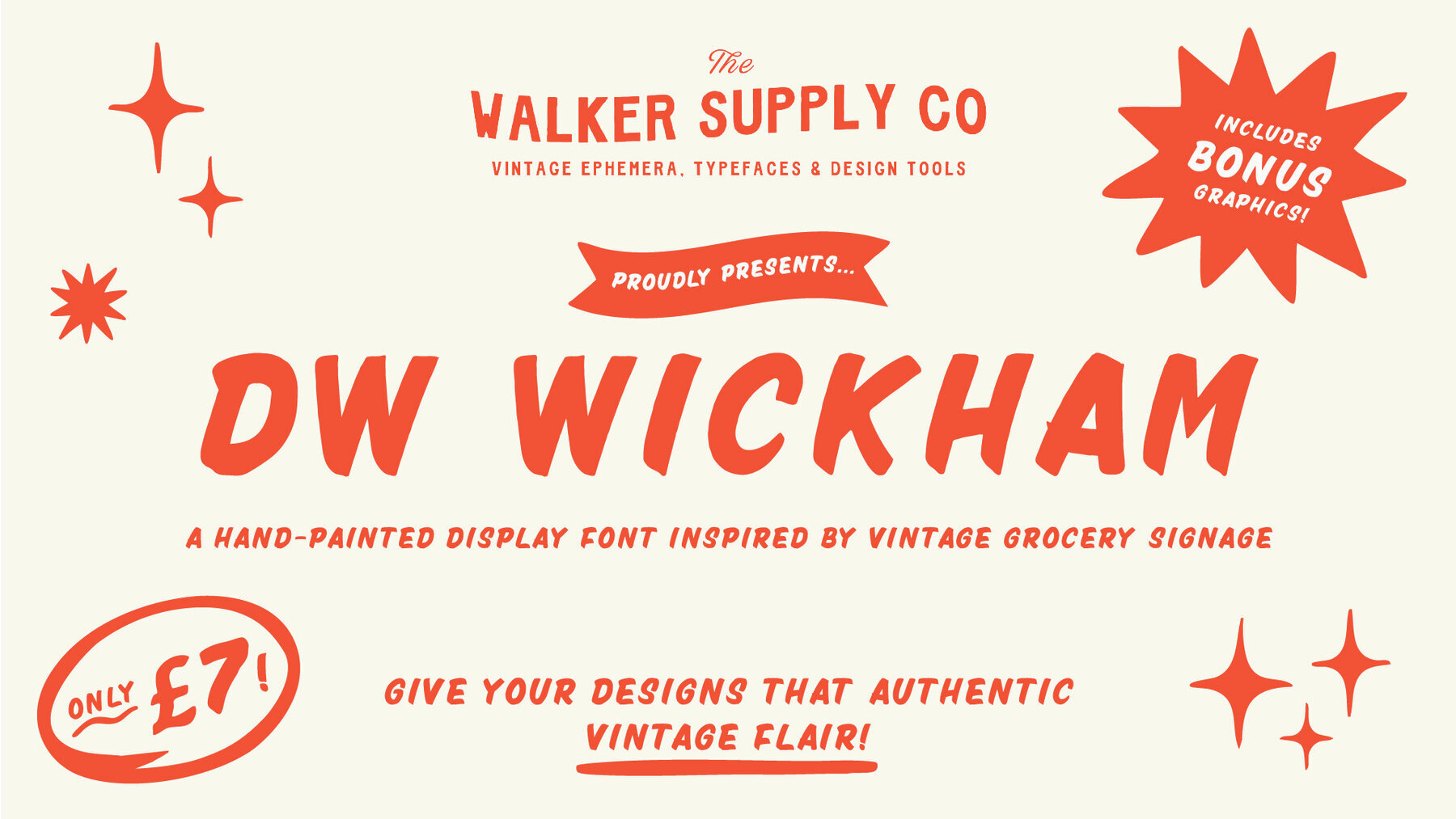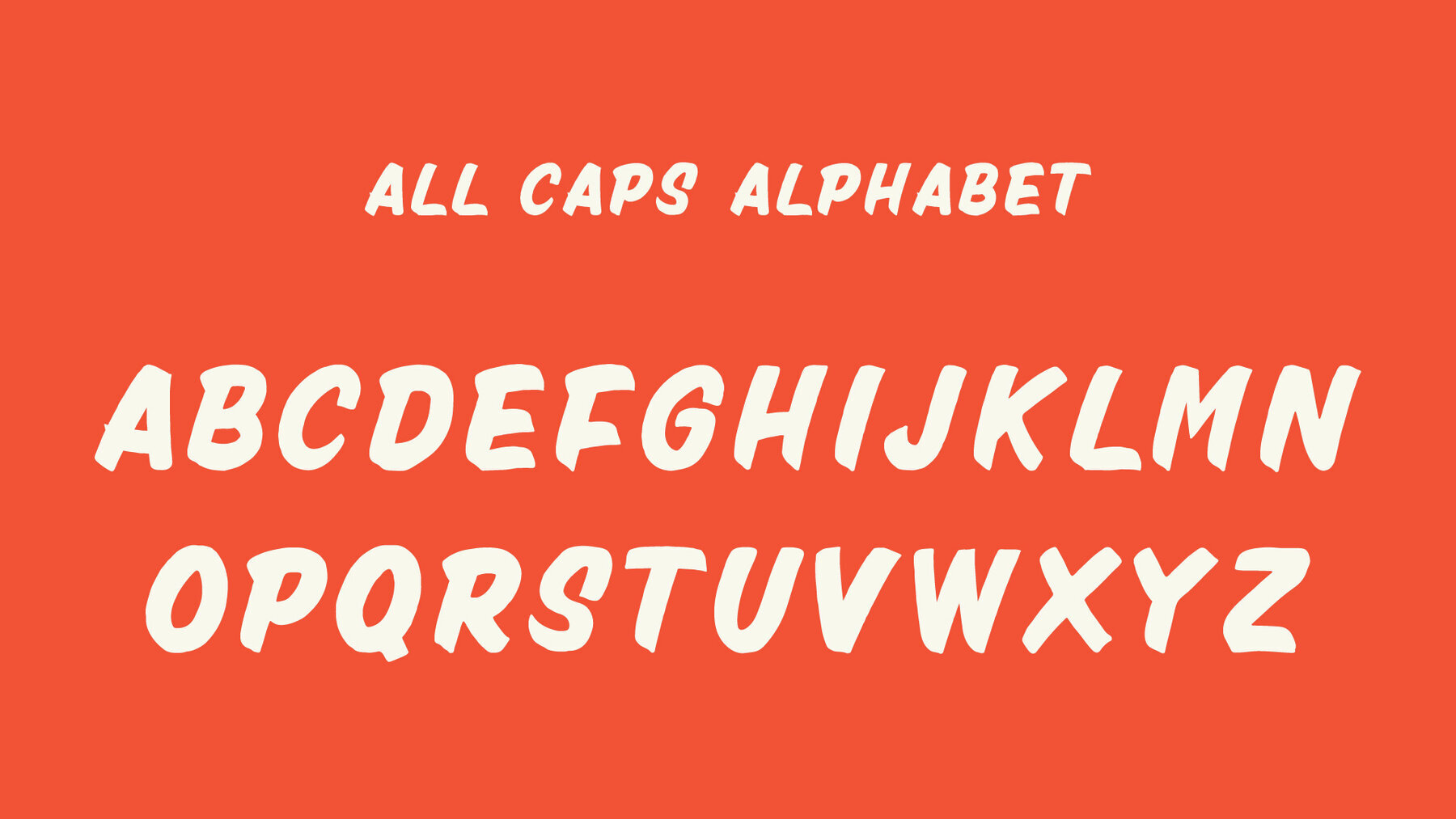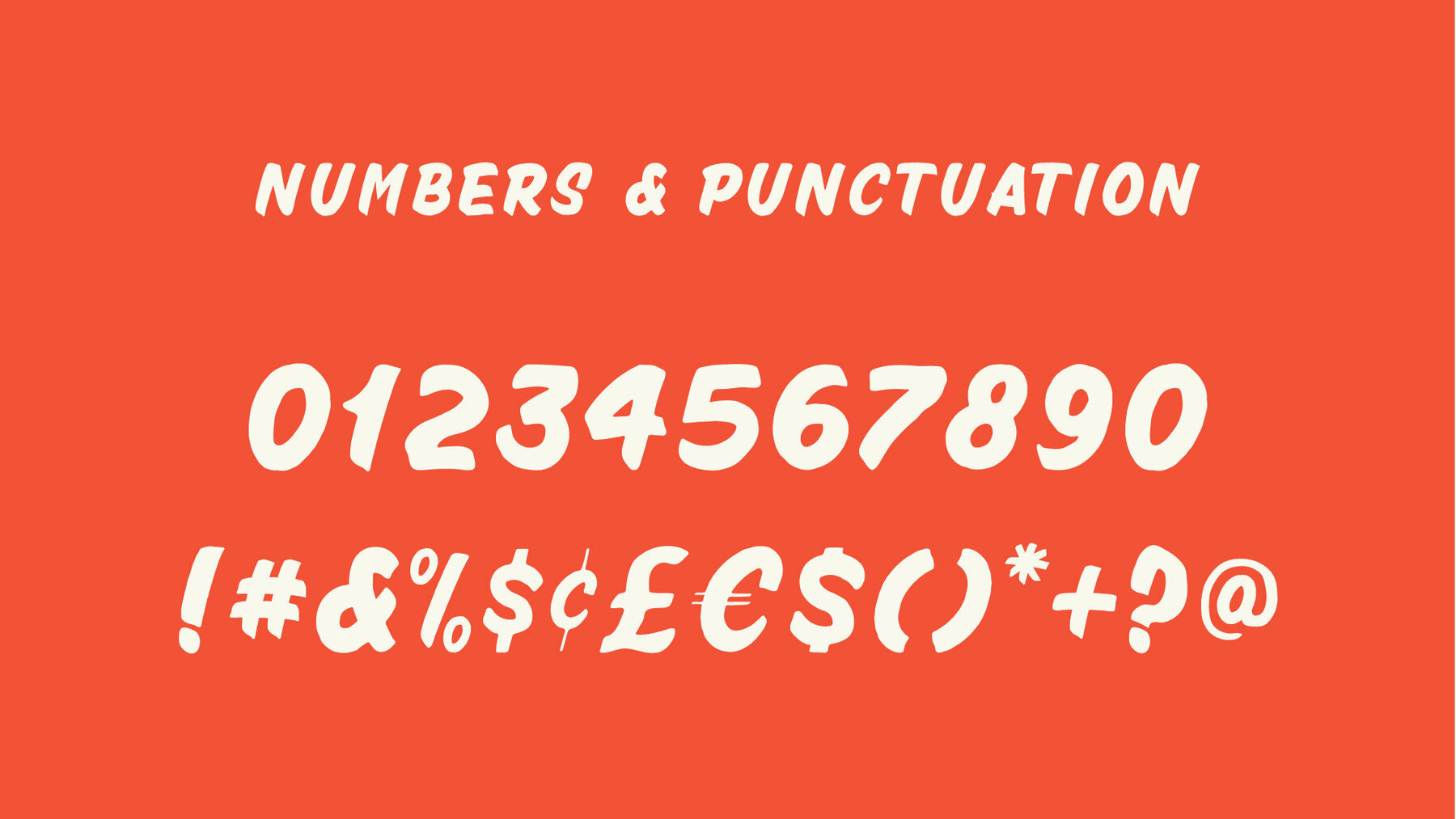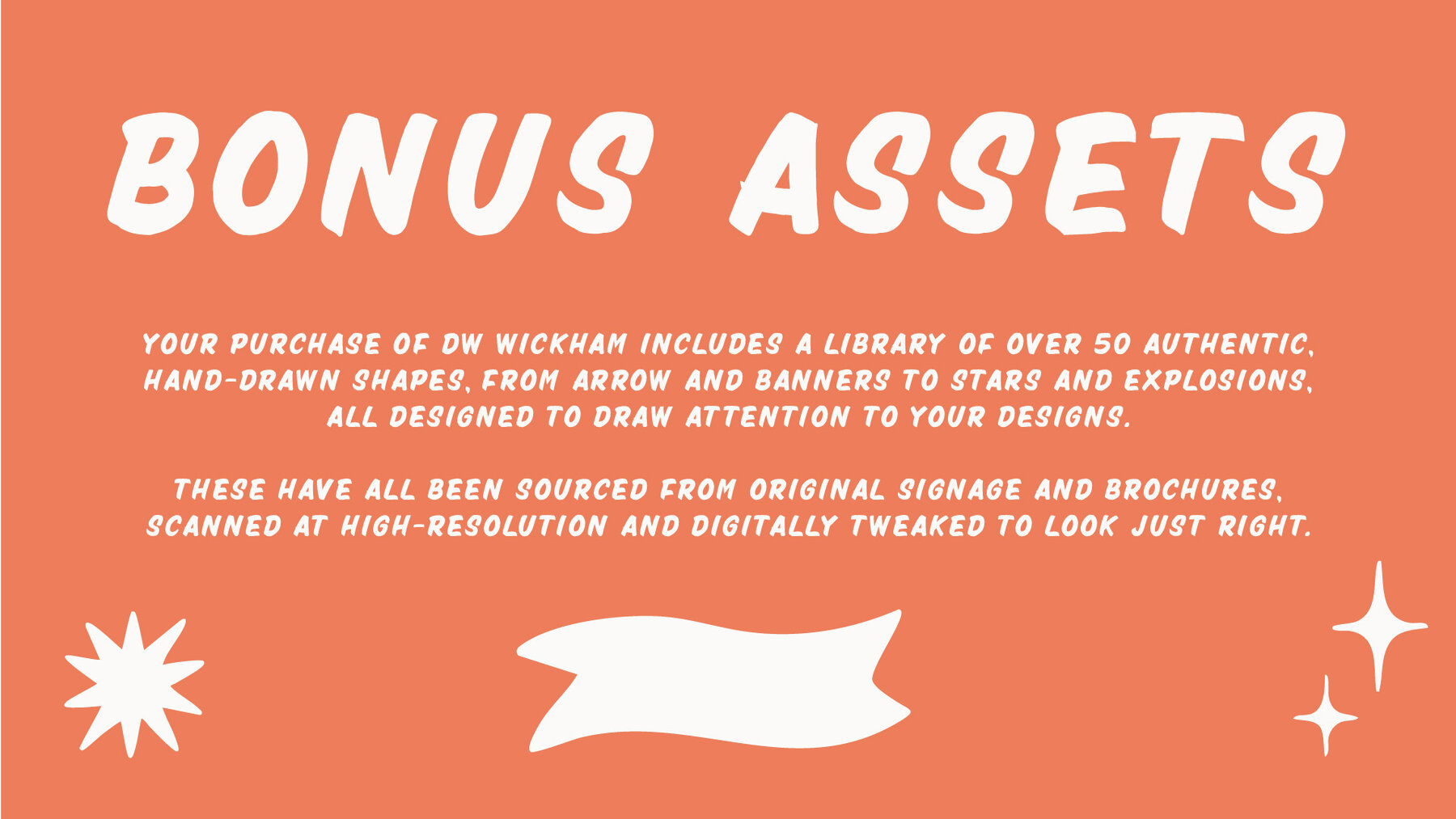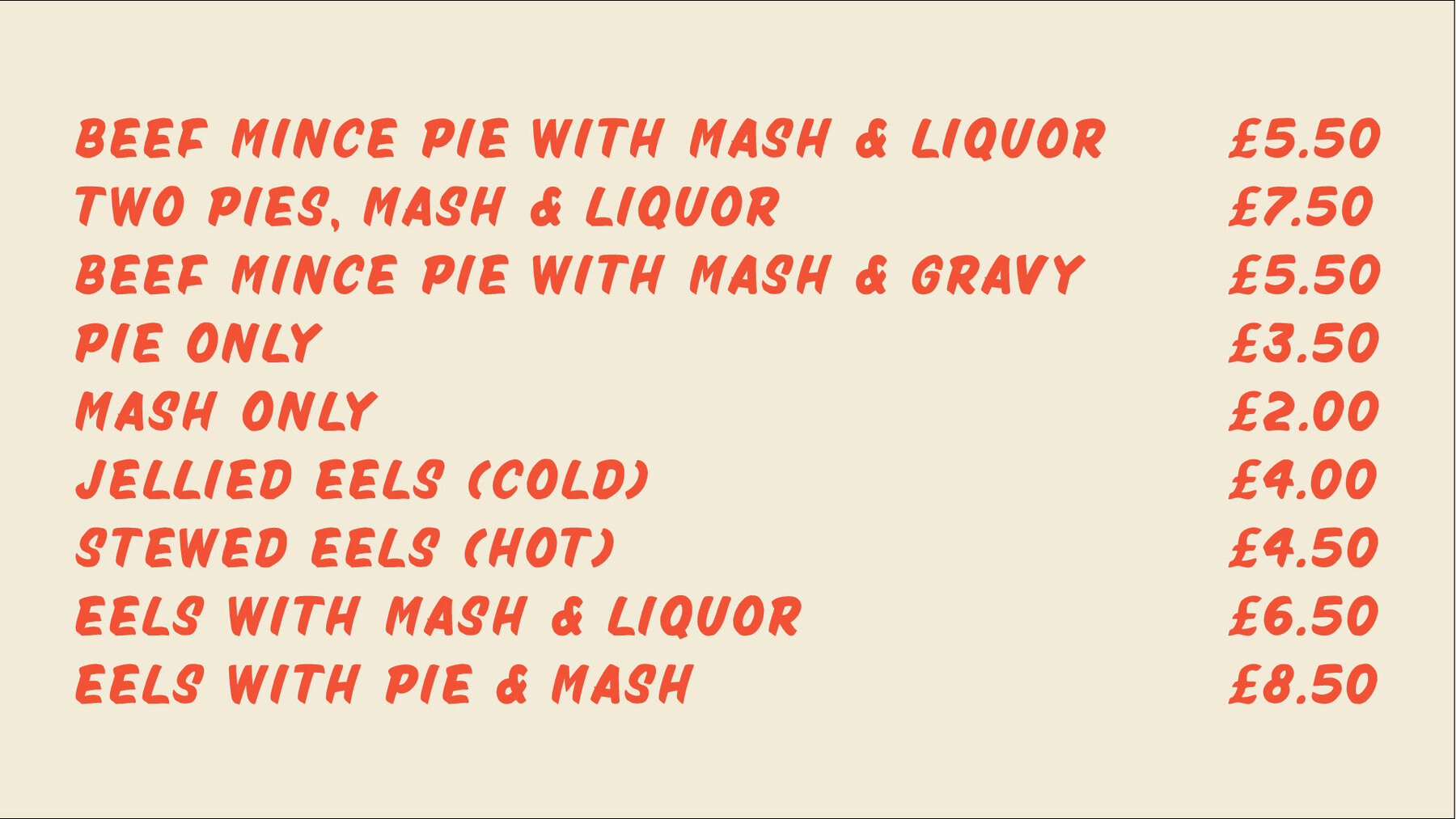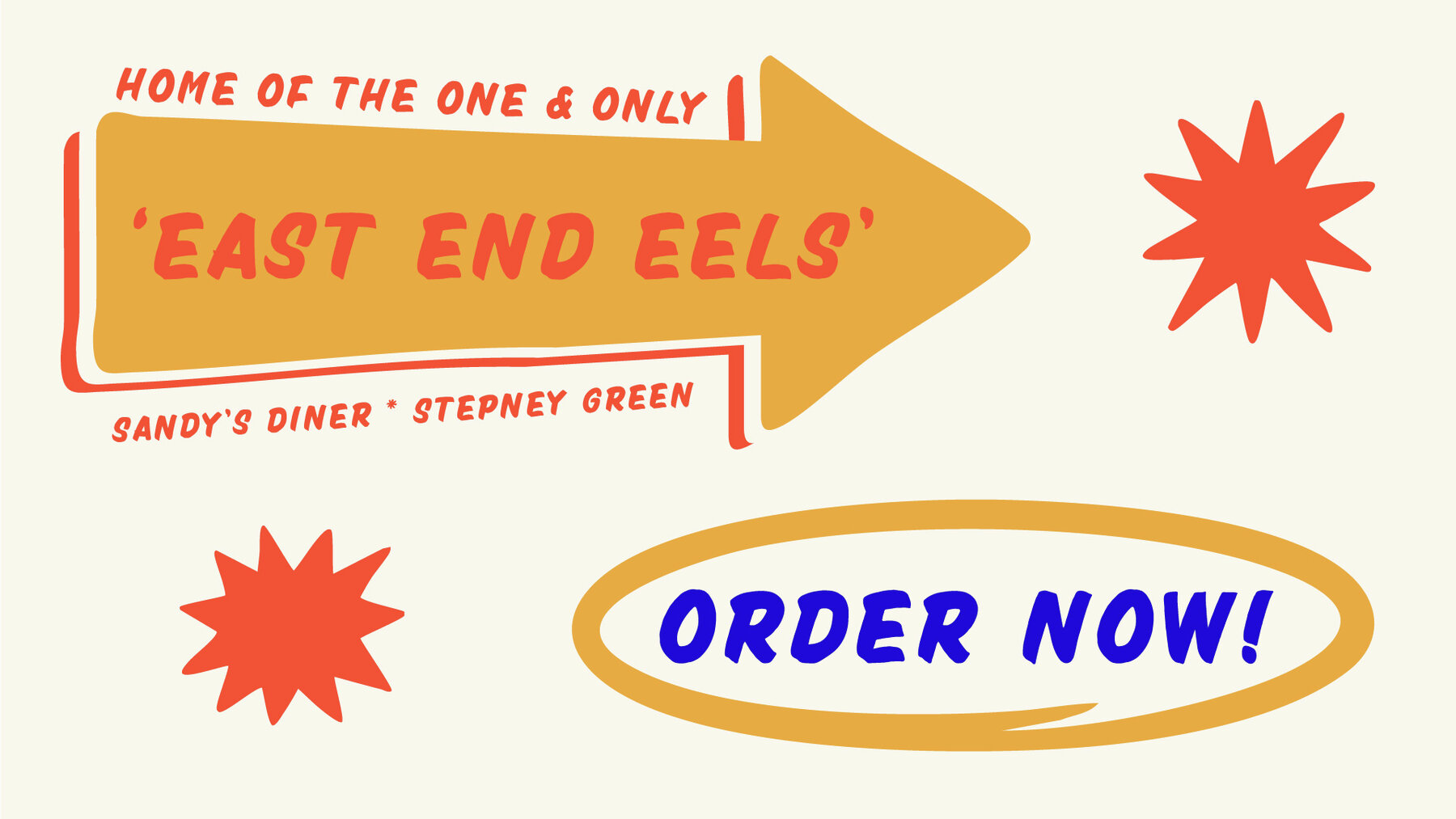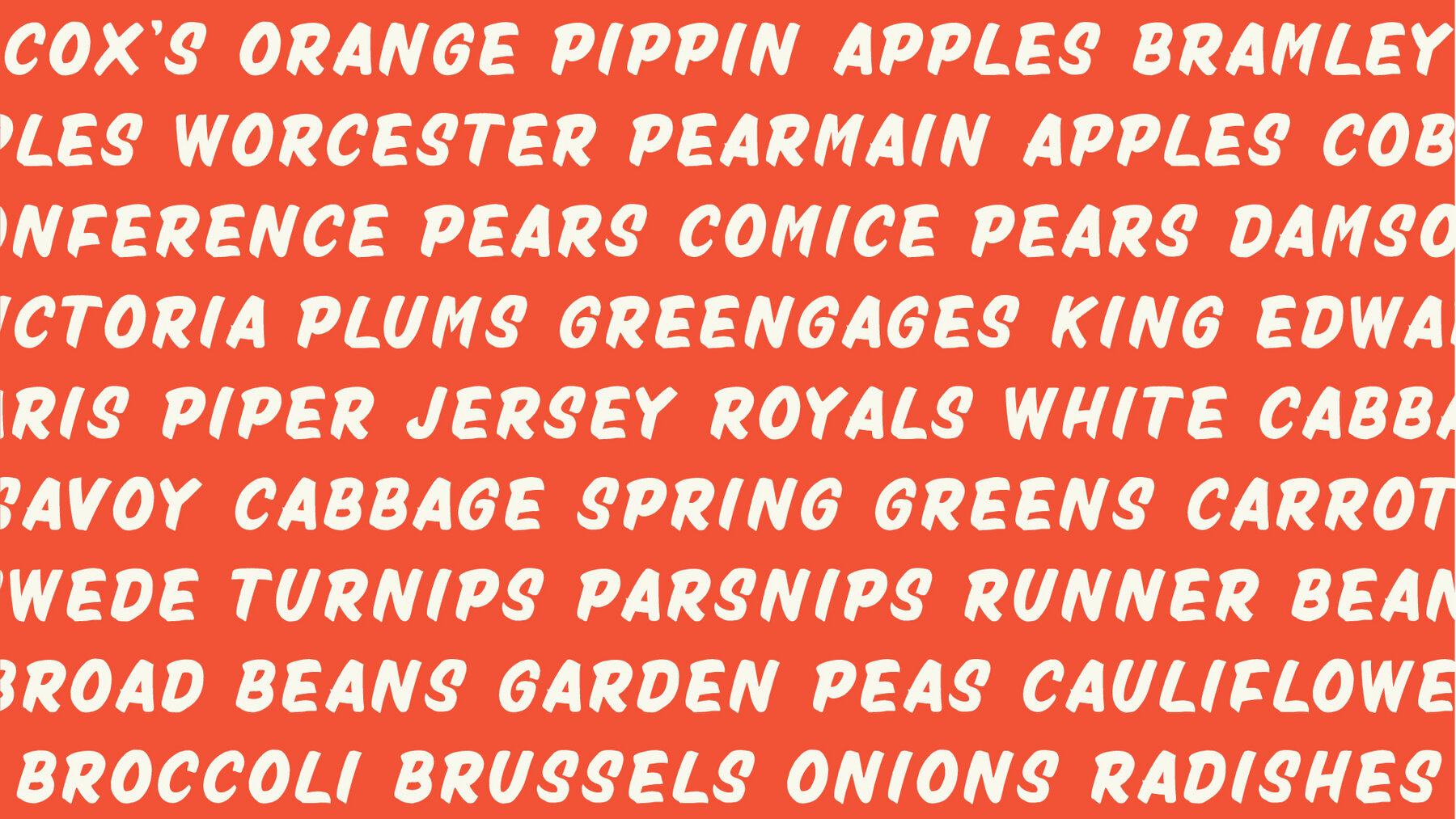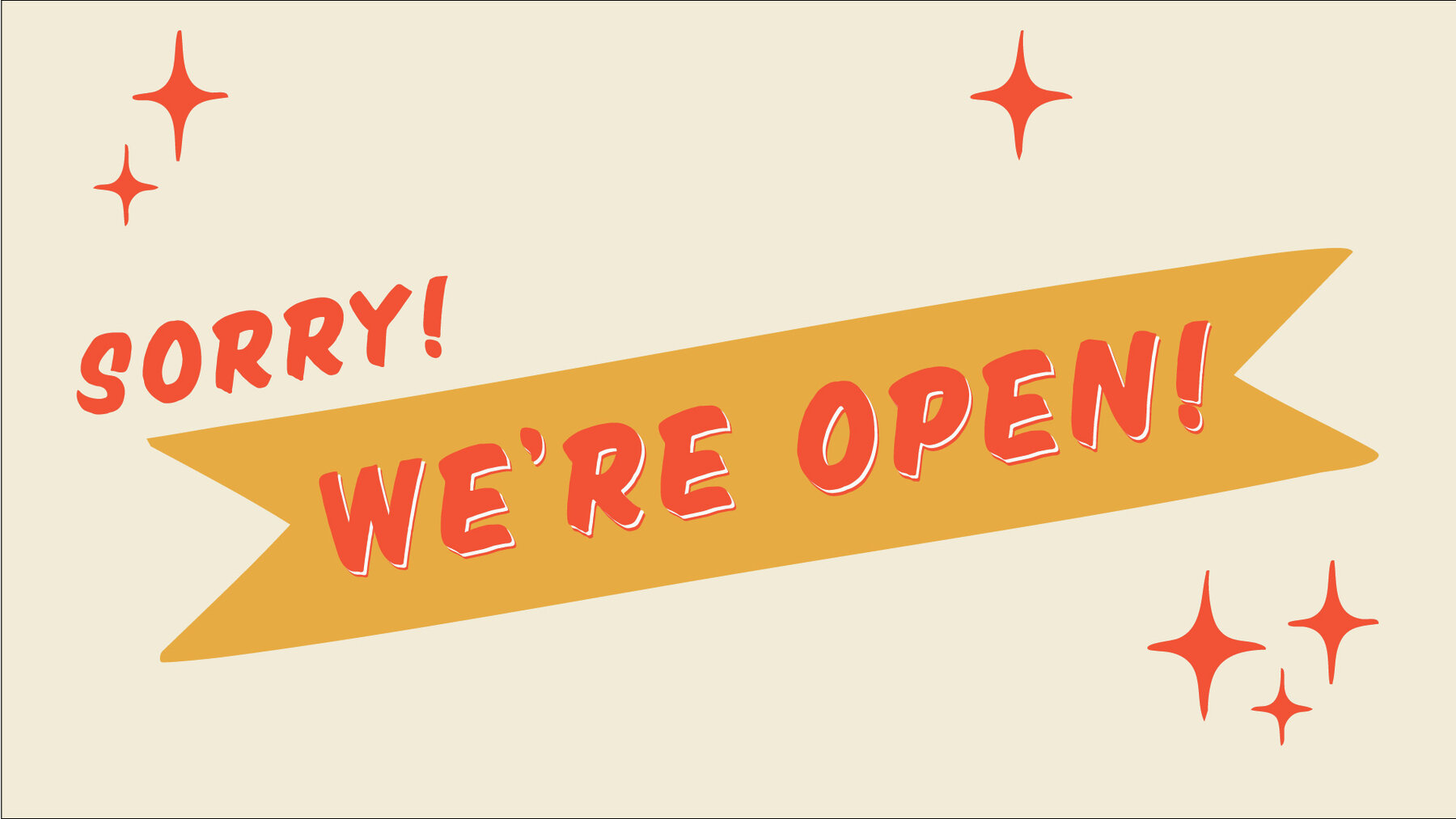
DW Wickham Font
Introducing DW Wickham, a hand-painted display font inspired by vintage grocery signs and hand-painted signage. DW Wickham is an all-caps typeface, with 40 bonus graphics in AI format, lovingly scanned from authentic 50’s grocery price boards, digitally tweaked and restored so you can add originality and authenticity to your design.